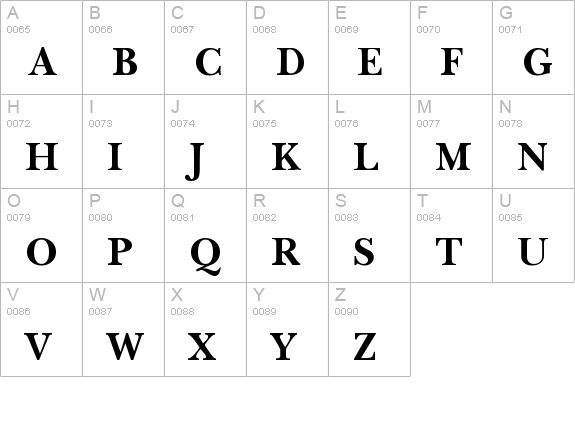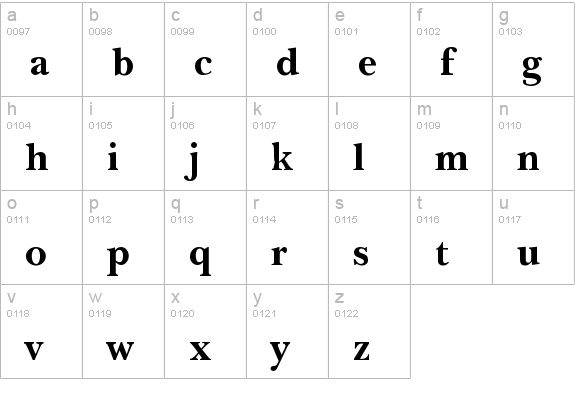
Bagad Bold Tryout Font Details
Bagad Bold Tryout is a strong, high-contrast variant in the Bagad typeface family \xE2\x80\x94 well suited to headlines, attention-grabbing titles, and strong calls-to-action.
The Bagad Bold Tryout font is a striking and modern typeface that exudes confidence and boldness. With its strong, clean lines and sleek design, this font is perfect for making a statement in any project. Whether you're designing a poster, logo, or website, the Bagad Bold Tryout font will command attention and leave a lasting impression. Best of all, this font is available for free download at FontsMarket.com. You can easily add this eye-catching font to your collection without having to spend a dime. Don't miss out on the opportunity to enhance your designs with the impactful Bagad Bold Tryout font today!